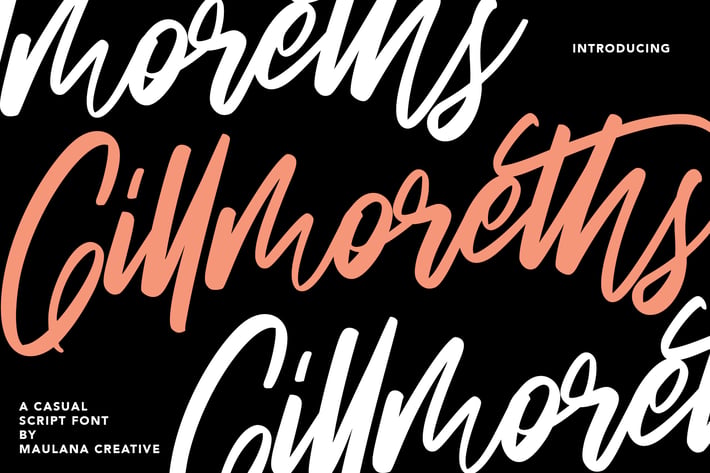
Gillmoreths Casual Script Font
Gillmoreths Casual Script Font.
Give your designs an authentic handcrafted feel. Gillmoreths Casual Script Font is perfectly suited to logo, stationery, branding, typography quotes, magazine or book cover, website header, clothing, branding, packaging design, restaurant and more.